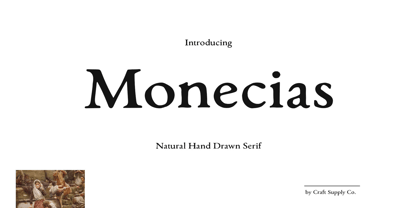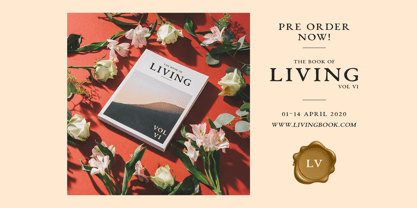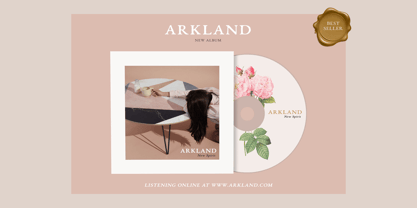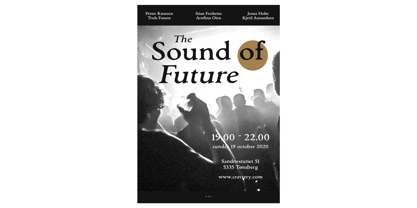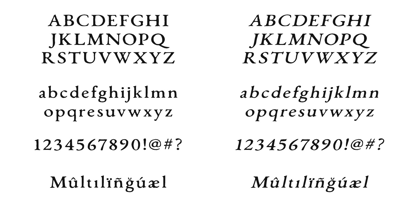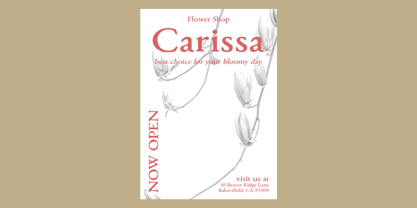
Monecias
by Craft Supply Co
The Monecias Font Family was designed by Trio Nazzar Saputra, Wahyu Hadi Yuana and published by Craft Supply Co. Monecias contains 2 styles and family package options. More about this family
Introducing Monecias – Natural Hand Drawn Serif. It can be used to create almost all types of design projects like print materials. Just use your imagination and some graphic design set in Extras, your project will become more alive and look great than ever with Monecias – Natural Hand Drawn Serif. You want to make a greeting card or a package design, or even a brand identity, craft design, any DIY project, book title, wedding font, pop vintage design, retro design or any purpose to make your art / design project look pretty and trendy? Feel free to play with this fonts!
Designers: Trio Nazzar Saputra, Wahyu Hadi Yuana
Foundry: Craft Supply Co